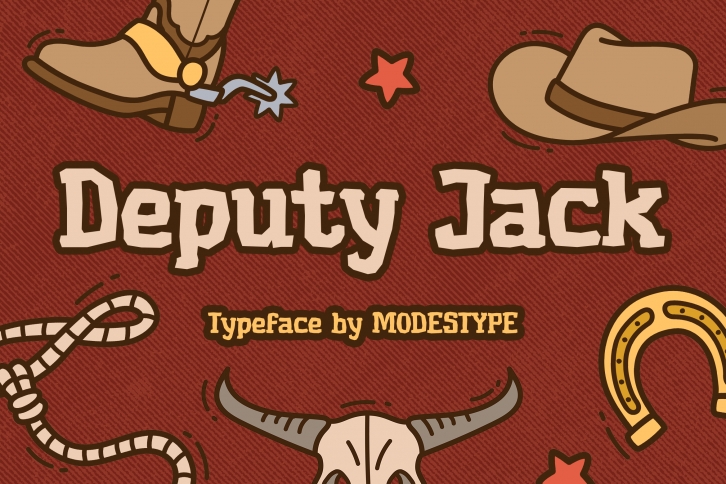
Deputy Jack is a cool, casual and vintage styled display font. It works for various design ideas, but particularly for those related to children parties or school projects.